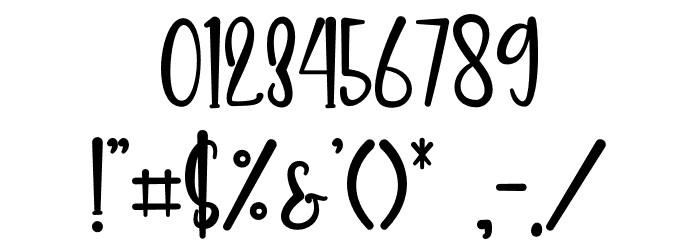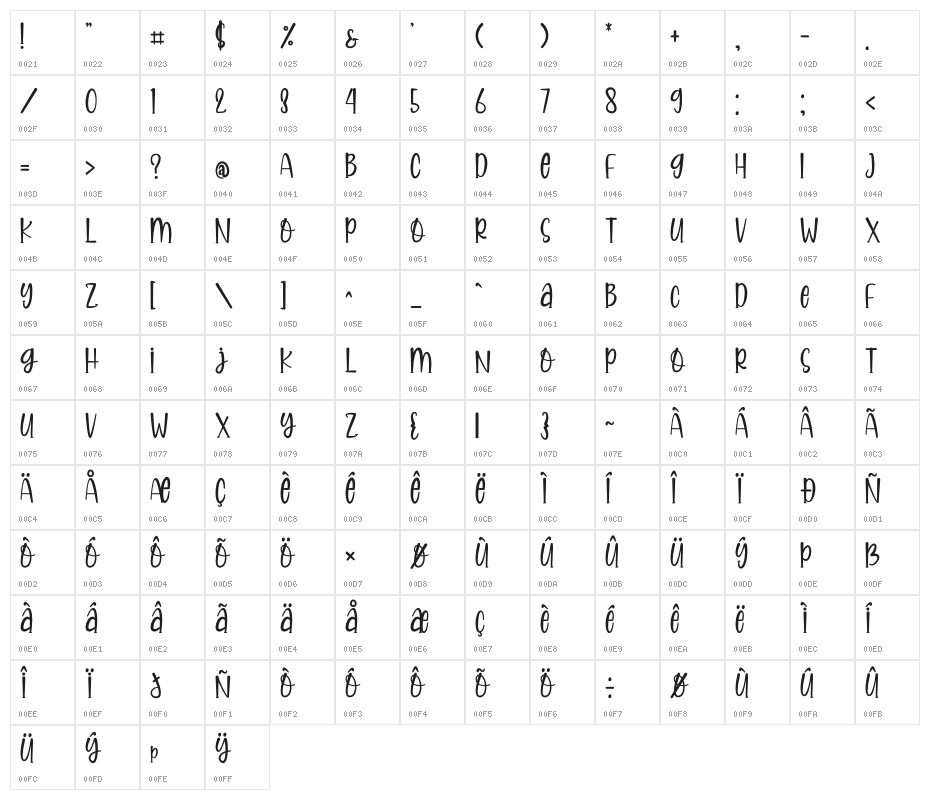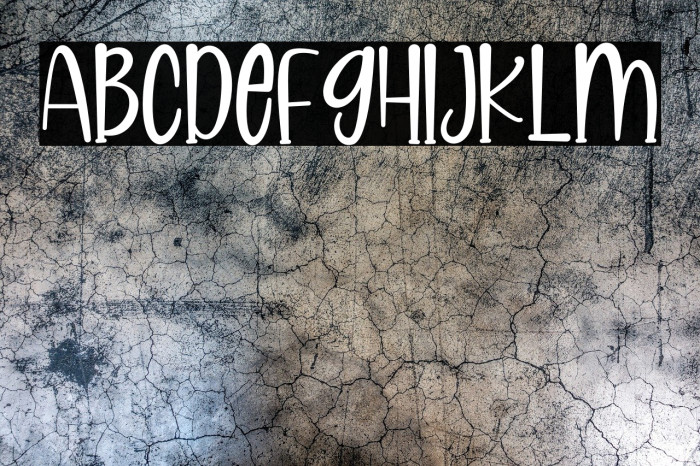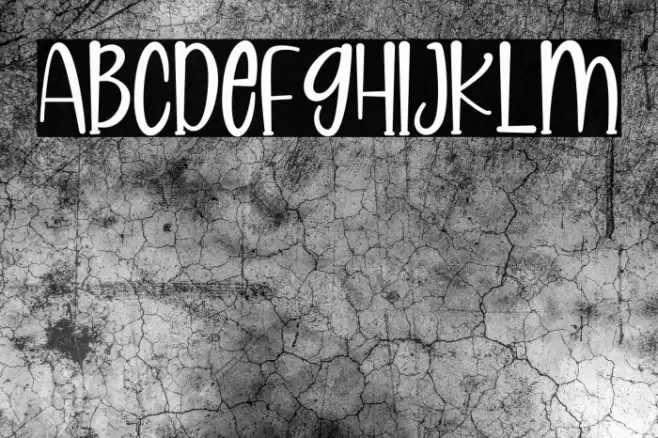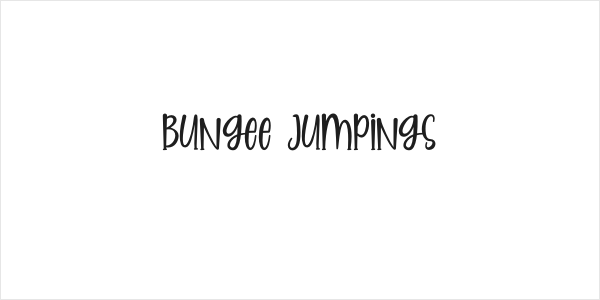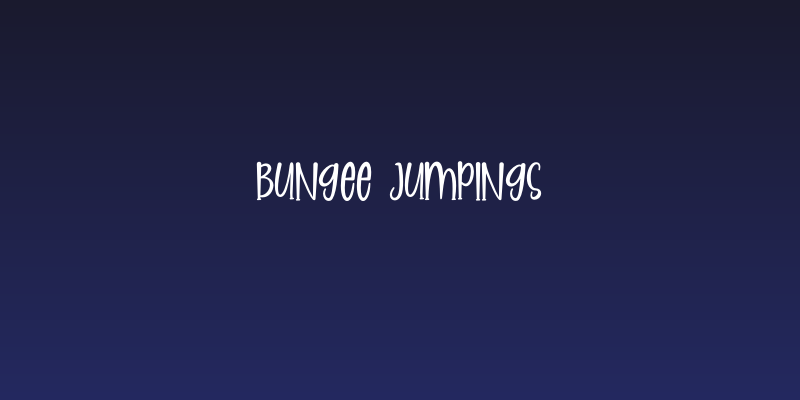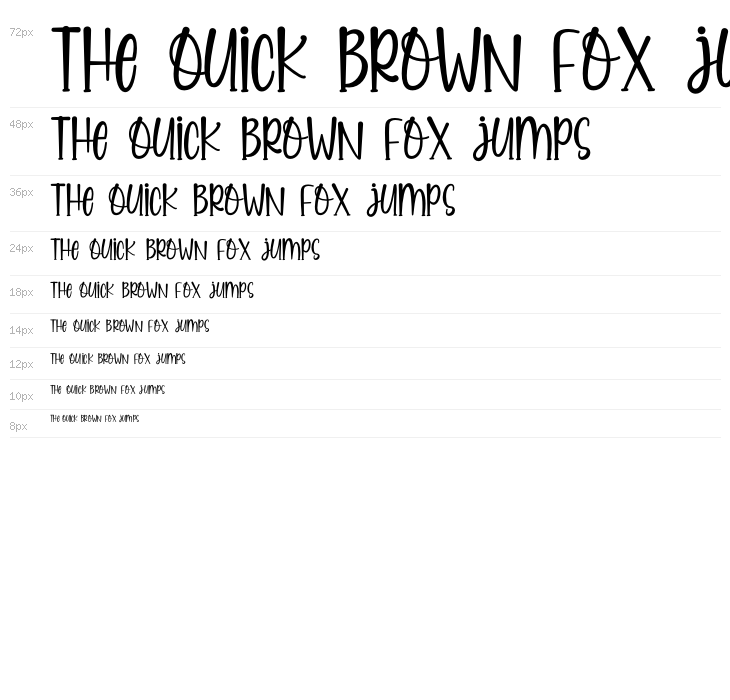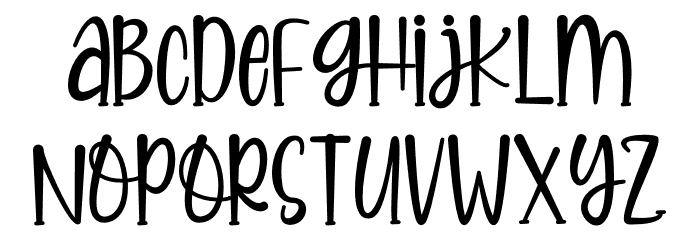
Bungee Jumpings Font
Bungee Jumpings Description
This font features a playful and energetic style, characterized by its tall, narrow letters with a slight slant, giving it a dynamic and lively appearance. The strokes are consistent in width, providing a uniform look across all characters. The uppercase and lowercase letters share a similar height, enhancing its quirky and informal vibe. The numbers and special characters maintain the same playful style, making it suitable for creative and fun projects. The font's overall design is reminiscent of handwritten or doodle-like text, adding a personal touch to any design.
Overall StylePlayful
Proposed ProjectsIdeal for children's books, playful branding, event invitations, and creative posters.